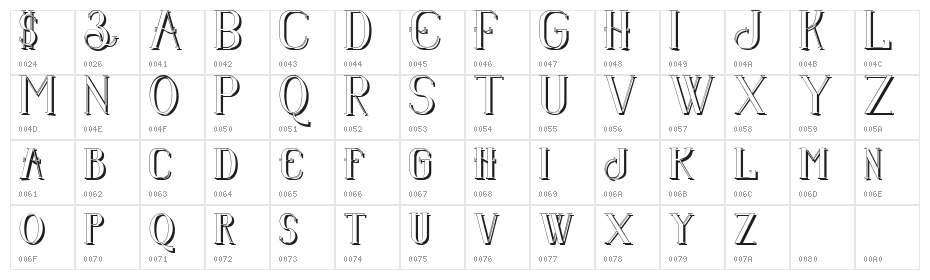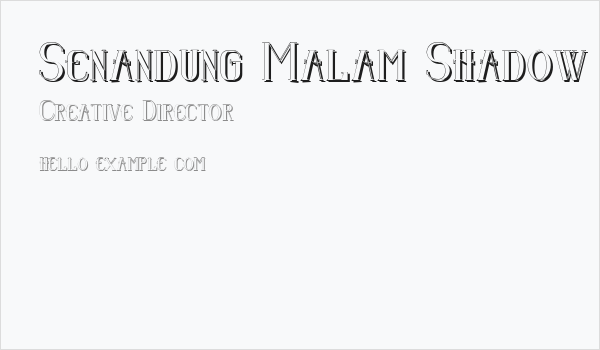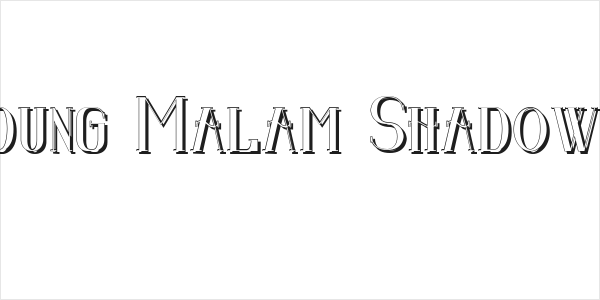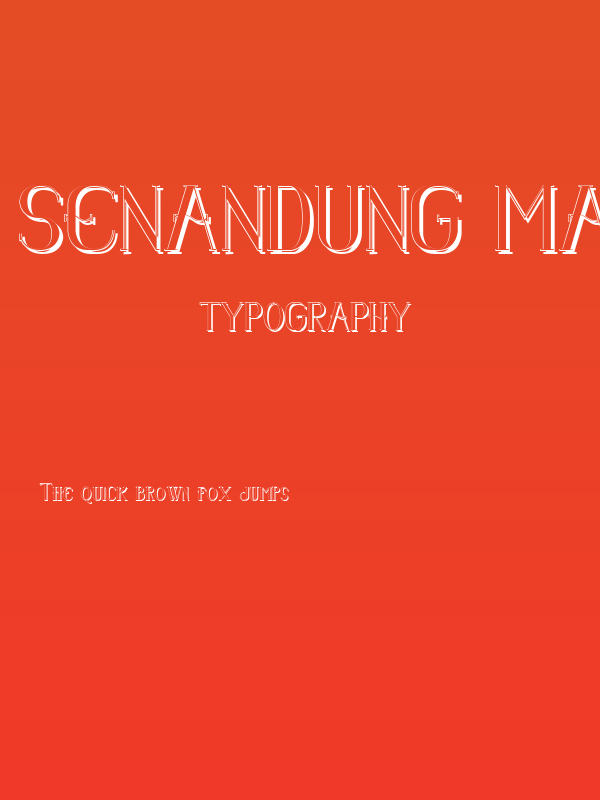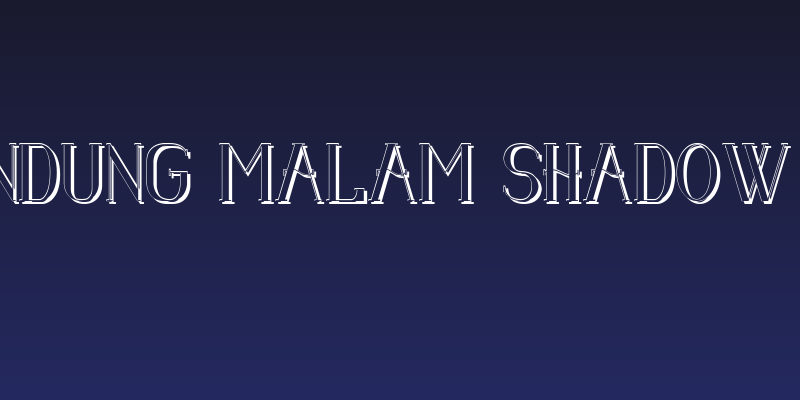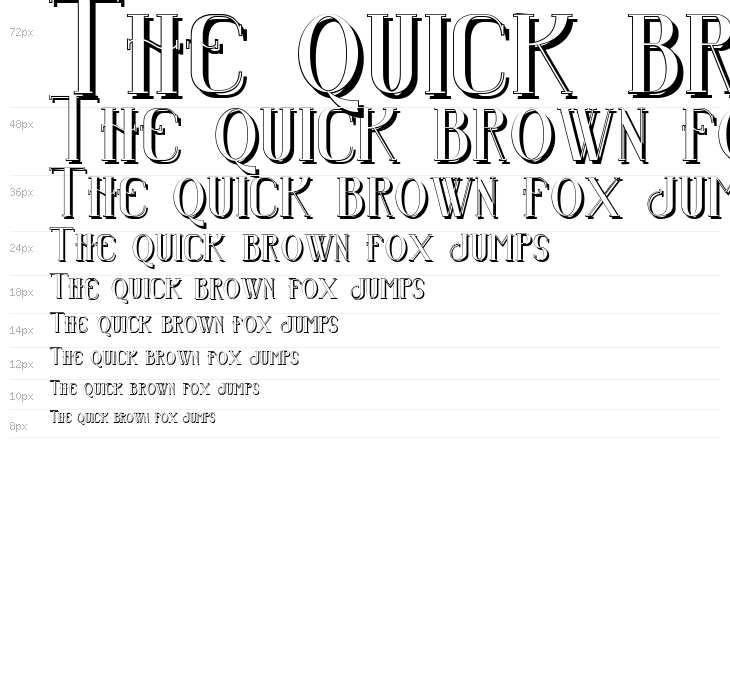
Senandung Malam Shadow Bold Font
Senandung Malam Shadow Bold Description
This font features a bold and decorative style with a distinct shadow effect that adds depth and dimension to each character. The uppercase letters are designed with sharp, angular lines and a slight curvature, giving them a modern yet classic appearance. The shadow effect is consistent across all characters, enhancing their visibility and making them stand out. The font includes a full set of uppercase letters, numerals, and a selection of special characters, each maintaining the same stylistic elements. The overall design is both eye-catching and versatile, suitable for a variety of creative applications.
| Proposed Projects | Ideal for headlines, posters, branding, and any project requiring a striking visual impact. |